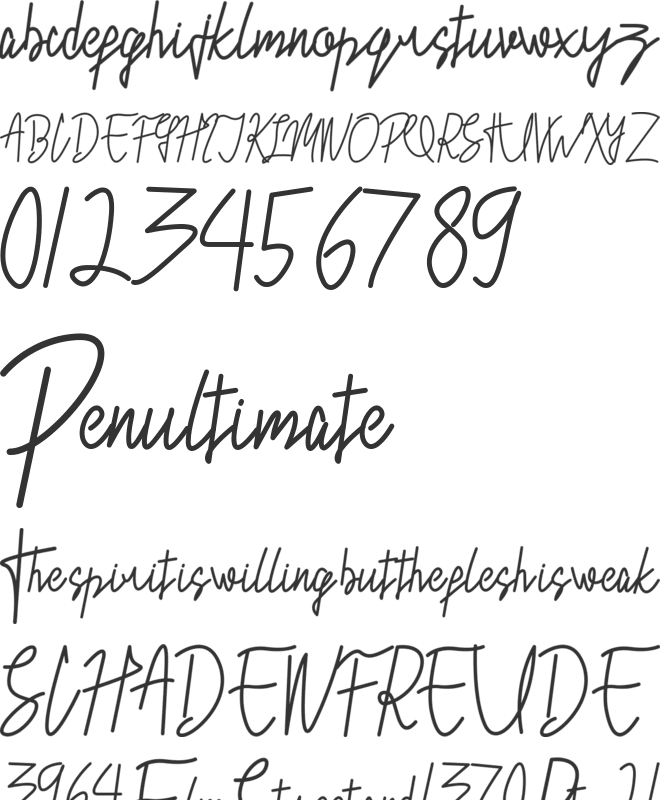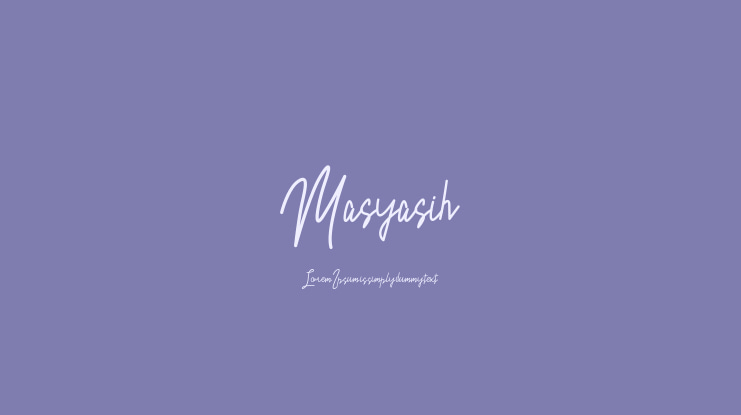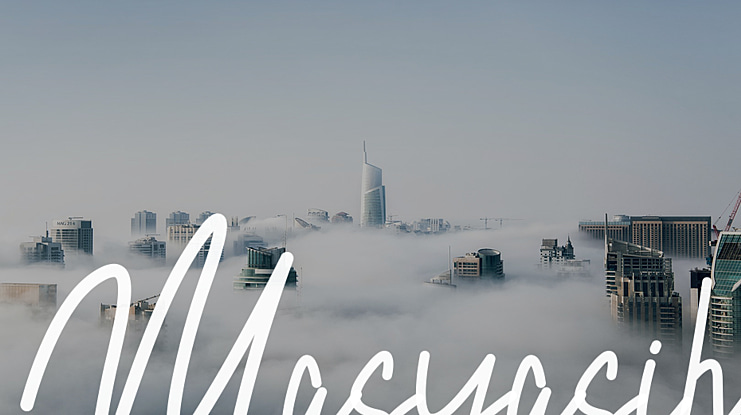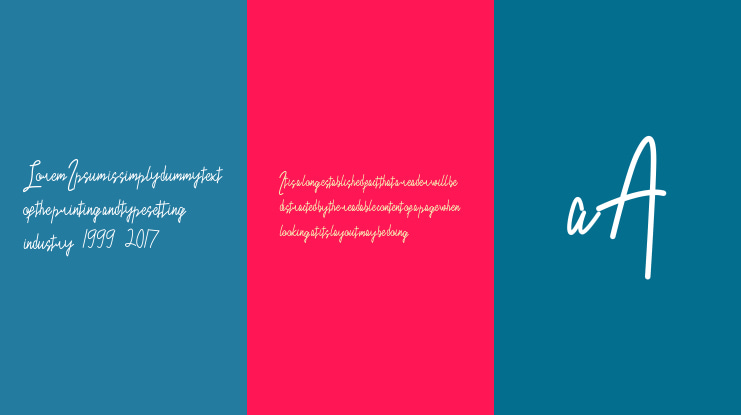
Masyasih Font
This is Masyasih Script font Typeface. This font is suitable for you to use for signatures, some posters, and feminine media. However, it is undeniable that this font can be used for any media, as long as you can adjust it!
This font was created using pencil strokes on paper, then scanned using a smartphone camera and traced in Adobe Illustrator.
This font only has 76 Glyphs and 14 ligatures in it.